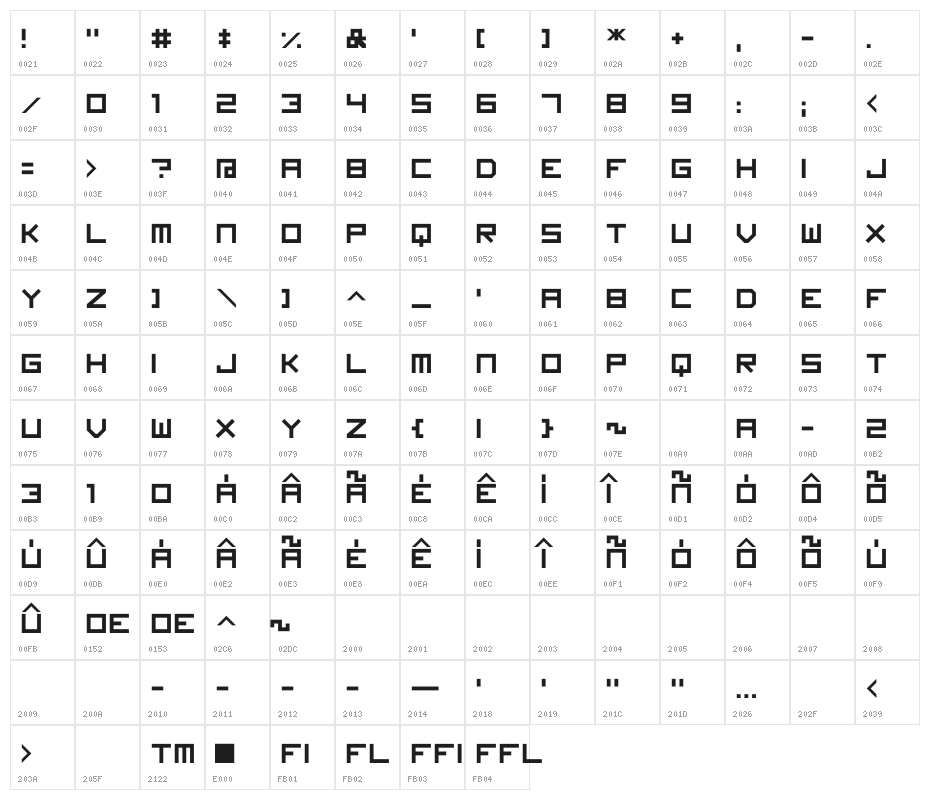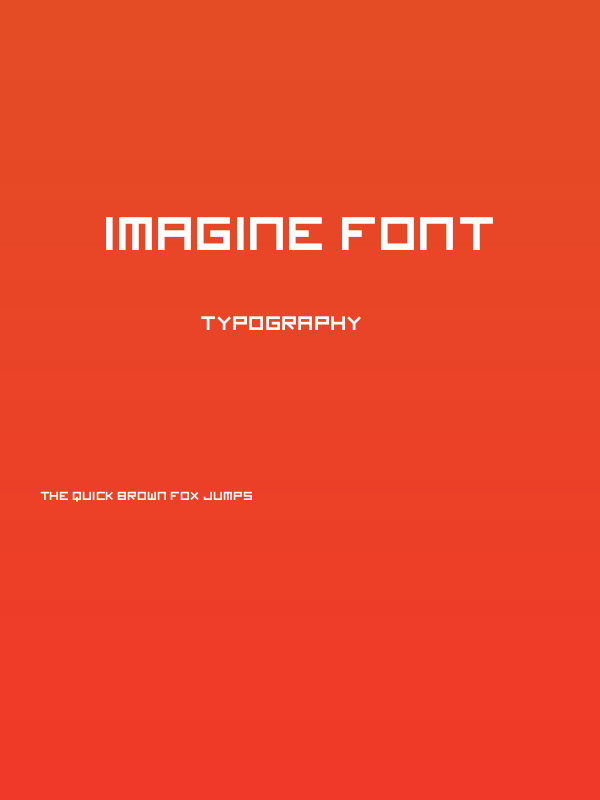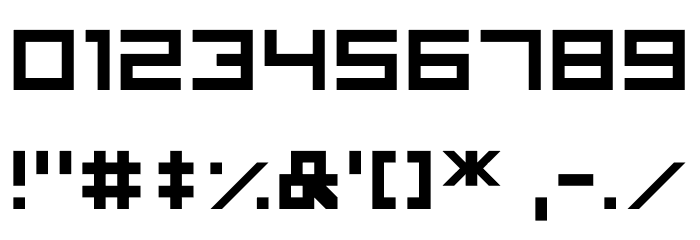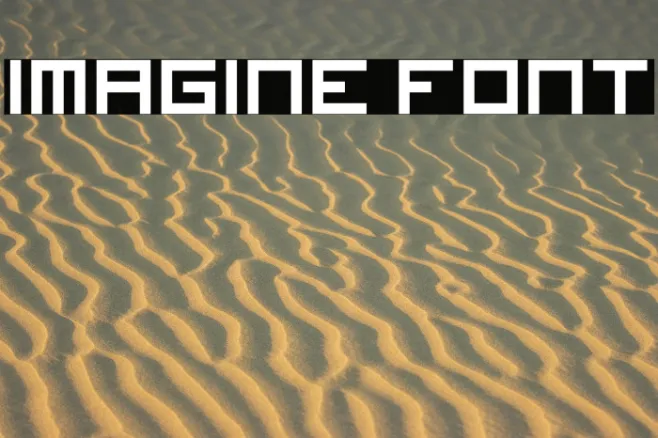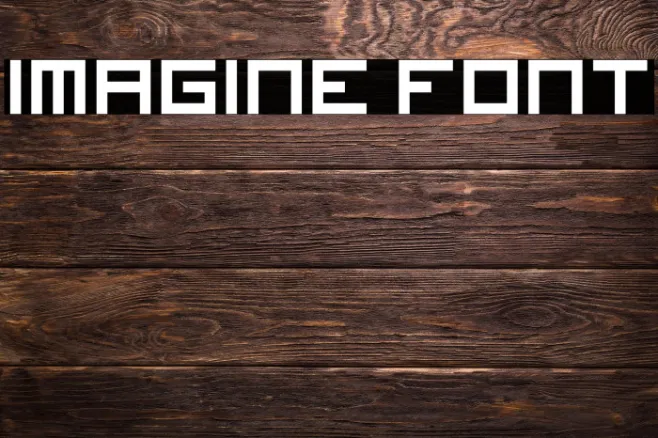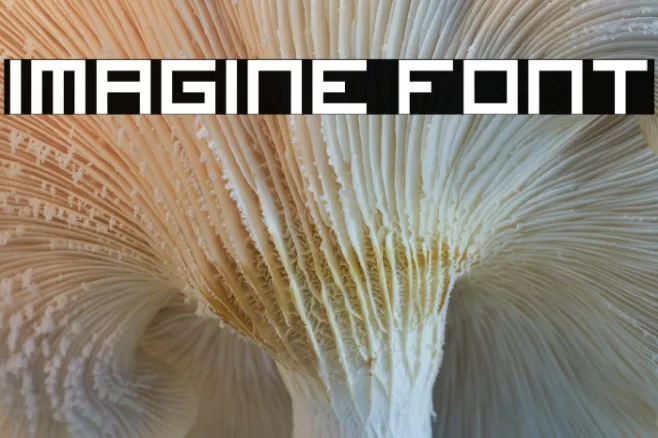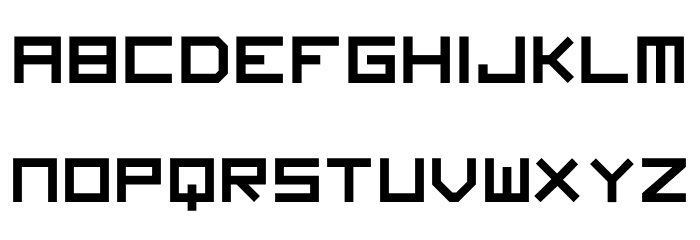
Imagine Font Font
Imagine Font Description
This font features a bold, geometric design with a distinctly modern and futuristic aesthetic. The characters are constructed with straight lines and sharp angles, giving it a blocky and robust appearance. The uppercase and lowercase letters maintain a consistent height, contributing to a uniform look. The numerals and special characters follow the same design principles, ensuring cohesion across all glyphs. This font's unique style makes it stand out, ideal for projects that require a strong visual impact.